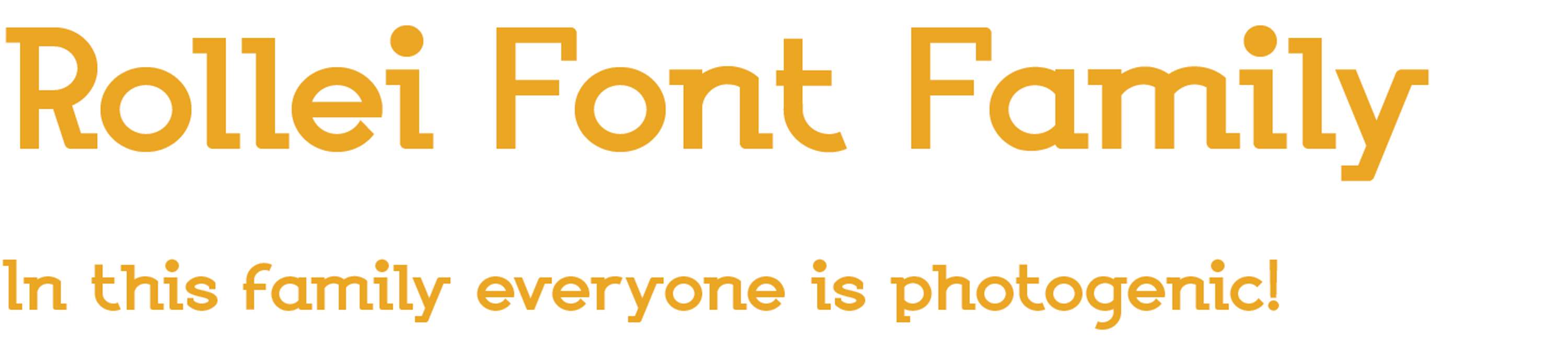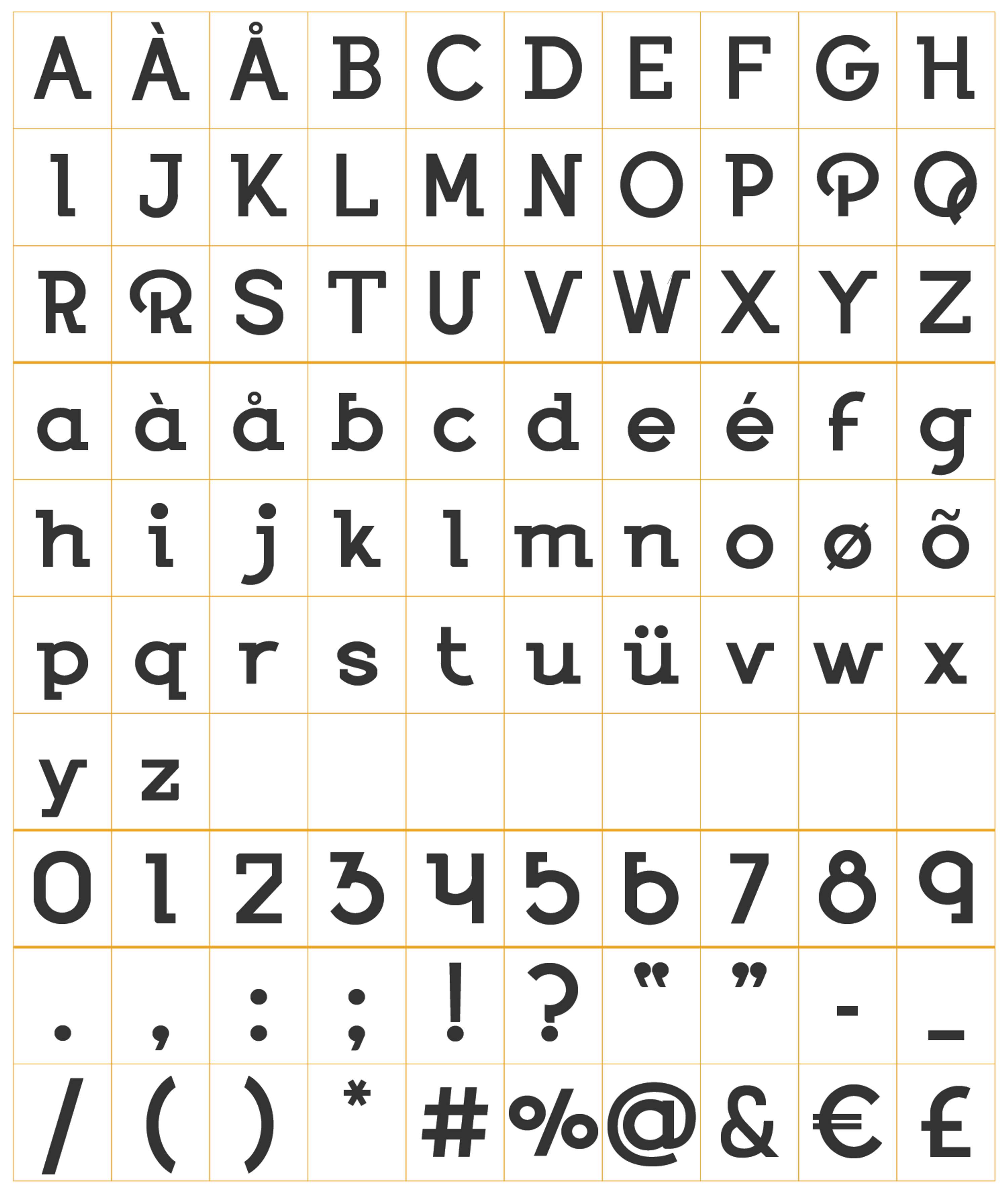
Rollei - Serif Font
There is no doubt that the introduction of the first Rolleiflex camera in 1929 was a sensation. It made a radical change in the creative field and their history is closely connected to the history of photography. It quickly became the must-have professional camera all over the world. There was no newspaper, no magazine, no photographic book that would not have some Rolleiflex photos in their publications. It was the beginning of a technical evolution that would be imitated by many other manufacturers around the globe. Rollei is a serif display font that draws inspiration from the unique Rollei 35 camera logo. It is characterized by its geometric shapes of characters, light contrast of strokes, historic aura, and at the same time contemporary look. The serifs add a complimentary personal touch, elegance and distinctiveness.
Rollei - Serif Font by Nikoletta Hristova